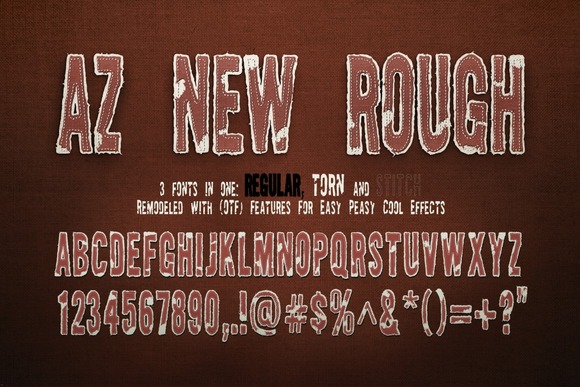
Unraveling the Charm of AZ New Rough Font
Have you ever stumbled upon an old, worn-out book in a thrift store, and as you flipped through its yellowed pages, you felt an instant connection to the past? The creaky sound of the paper, the faded ink, and the intricate stitching lines all came together to transport you to a bygone era. It’s moments like these that inspire us to revisit the beauty of the past and bring it into our present-day designs.
For designers seeking to infuse their work with a touch of nostalgia, the AZ New Rough Font is a treasure trove of creative possibilities. This beautiful, detailed font boasts stitching lines, giving it a distinctive retro feel that’s perfect for projects requiring a vintage vibe. With three unique fonts at your disposal – AZ New Rough Regular, AZ New Rough Thread, and AZ New Rough Torn – you’ll have ample opportunities to experiment and find the perfect fit for your design.
AZ New Rough Font Key Features
- Font Family: AZ New Rough is a hand-drawn, distressed font family.
- Character Set: Includes uppercase and lowercase letters, numerals, punctuation, and special characters, making it suitable for a wide range of applications.
- Unique Characteristics: Distressed texture, rough edges, and subtle imperfections give the font a unique, hand-crafted look.
- Legibility: Despite its distressed appearance, AZ New Rough remains highly legible, making it suitable for body text and headlines alike.
AZ New Rough Font Review
Overall, I found the AZ New Rough Font to be a decent choice for designers looking for a distressed or rough texture font.
- The font has a unique, hand-drawn feel that can add a touch of personality to designs.
- The rough texture elements add a nice layer of depth and visual interest.
- The font is available in a range of weights, making it suitable for a variety of design applications.
- The font is highly legible, even at smaller sizes.
- The font may be too rough for designs that require a more polished or refined look.
- The texture elements can be overwhelming in certain contexts, such as in large blocks of text.
- The font may not be suitable for designs that require precise control over letter spacing or kerning.
Overall, I would recommend the AZ New Rough Font for designers who want to add a touch of grit and personality to their designs. However, it may not be the best choice for designs that require a more refined or polished look.
For the most out of AZ New Rough Font, try combining it with other distressed or rough fonts for a unique look.
Use the font to add texture and depth to your designs.
Use AZ New Rough Font for:
- Distressed or vintage-style designs.
- Rock or punk-inspired graphics.
- Creating a rugged or industrial look.
Alternatives to AZ New Rough Font
The Great Vibes Font is a beautiful, elegant script font perfect for creating a unique and eye-catching design. It’s ideal for use in headings, titles, and other areas where a touch of sophistication is needed. Great Vibes Font has a more refined and polished feel compared to AZ New Rough Font, making it suitable for formal and professional projects.
Carolyna Pro is a modern, high-end script font that’s perfect for creating luxurious and high-end designs. It’s ideal for use in branding, advertising, and packaging design where a touch of elegance is required. Carolyna Pro has a more refined and detailed feel compared to AZ New Rough Font, making it suitable for projects that require a high level of sophistication.
Alex Brush is a beautiful, handwritten font that’s perfect for creating a personal and intimate design. It’s ideal for use in editorial design, invitations, and other areas where a touch of warmth and personality is needed. Alex Brush Font has a more relaxed and casual feel compared to AZ New Rough Font, making it suitable for projects that require a more laid-back tone.